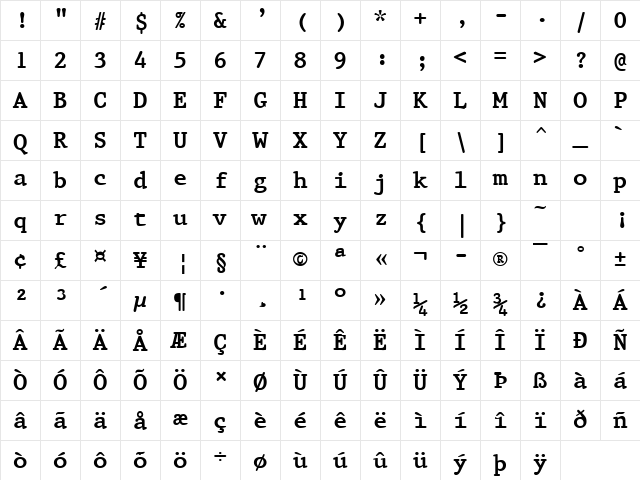
Prestige Bold
Prestige Bold Family
Prestige Bold
Complete Prestige Bold glyph index. Displaying only characters natively supported by Prestige Bold font.
Design Context for Prestige
Prestige is a composed and adaptable typeface that performs quietly and consistently across a wide range of design contexts. Its bold stroke weight gives it real presence on the page.